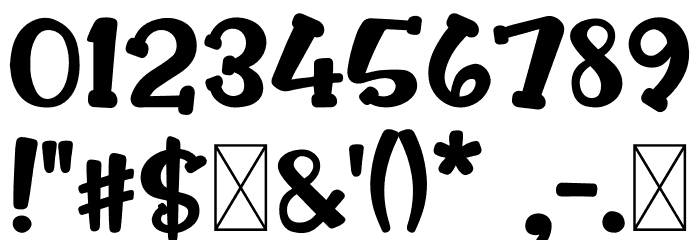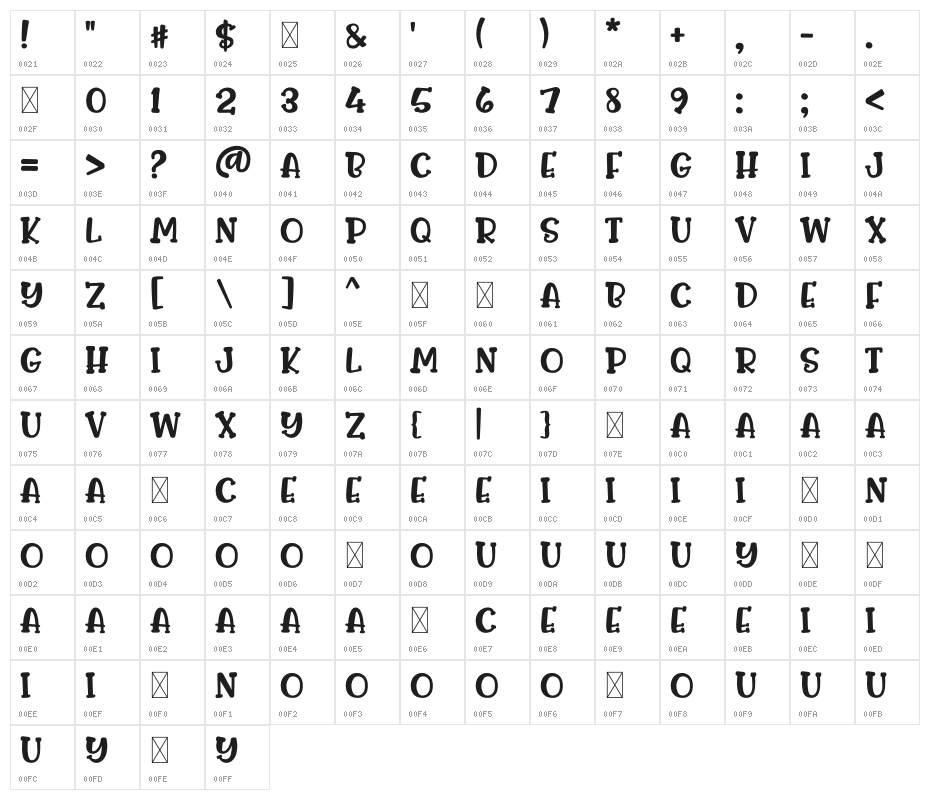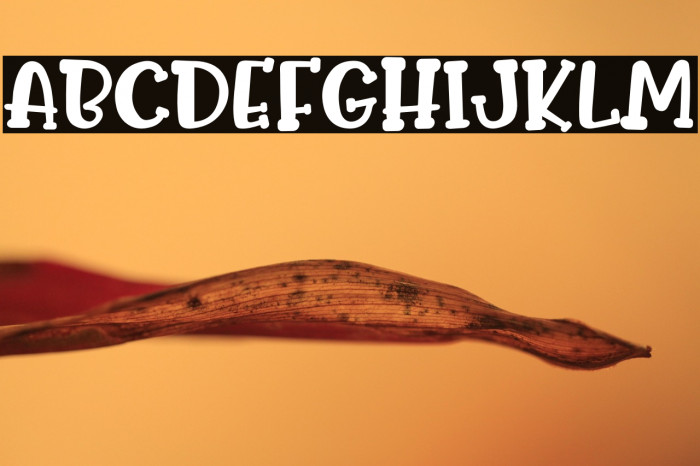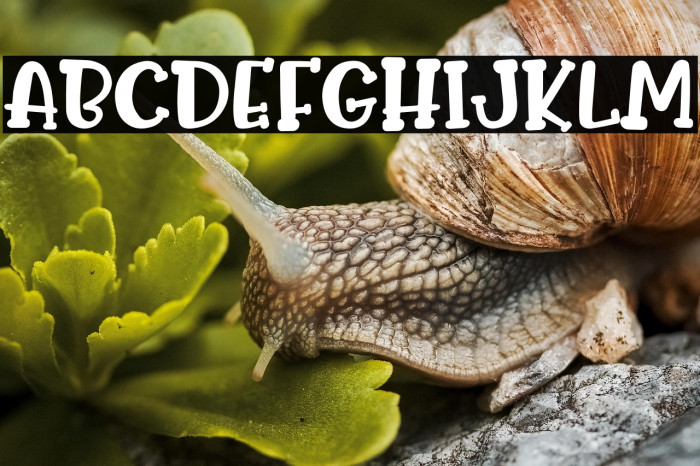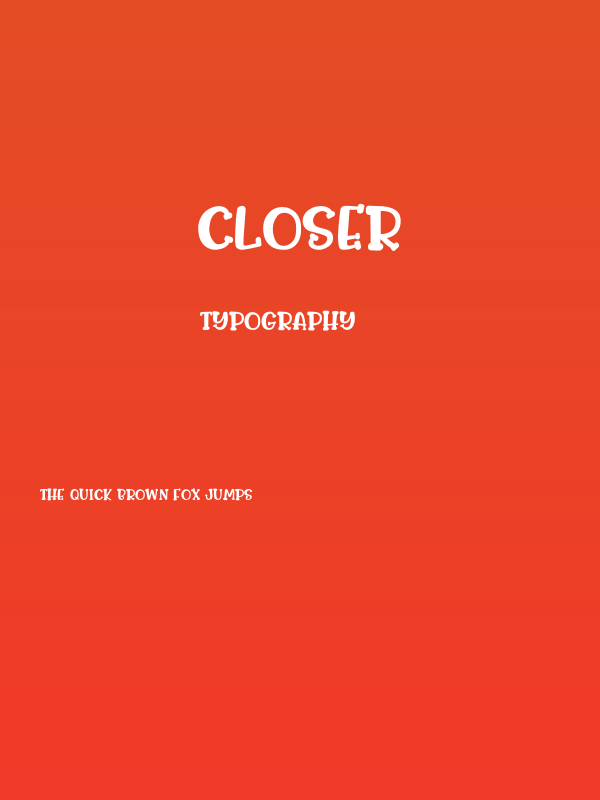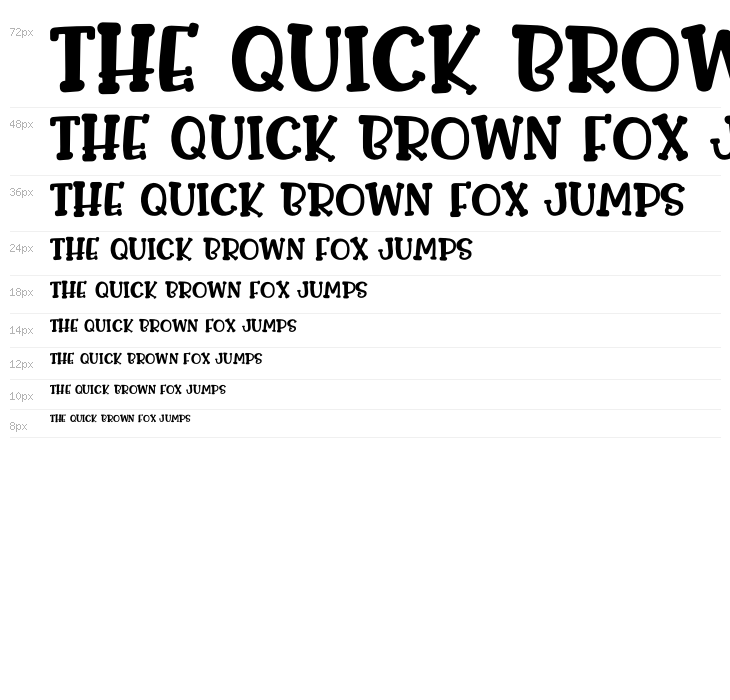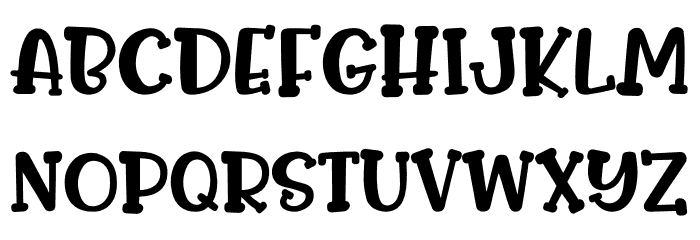
CLOSER Font
CLOSER Description
This font features a playful and bold design with rounded edges and a whimsical touch. Each character is crafted with a unique flair, incorporating subtle curves and exaggerated serifs that give it a lively and dynamic appearance. The letters are evenly spaced, ensuring readability while maintaining a fun and engaging style. The numbers and special characters follow the same design principles, making the font versatile for various applications. Its distinctive look makes it ideal for projects that require a touch of creativity and personality.
Overall StylePlayful, Whimsical
Proposed ProjectsIdeal for children's books, playful branding, party invitations, and creative posters.